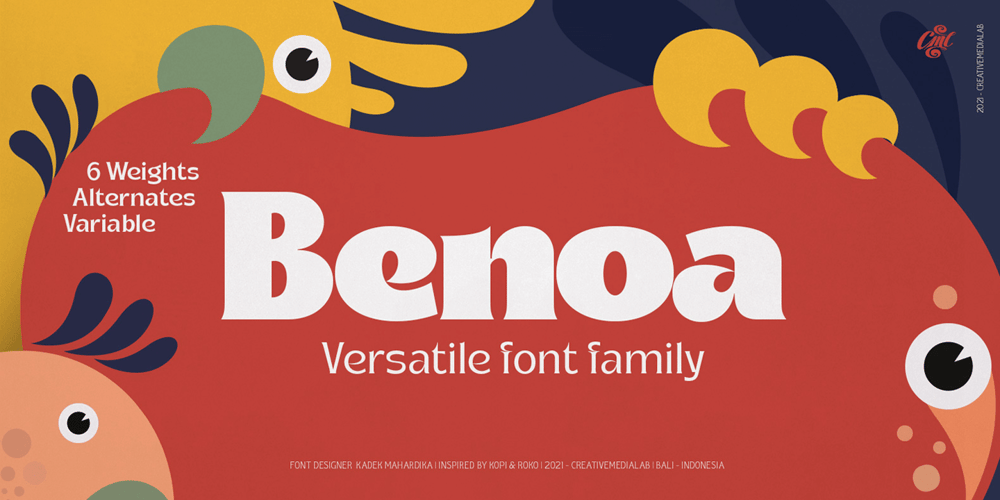
Benoa
Benoa font
Benoa Font Family was designed by Kadek Mahardika and published by Creativemedialab. Benoa contains 7 styles and family package options. Benoa is a versatile font family for your design, consist of 6 weights from thin to black with dozens of alternates. Benoa works well with any style of design concept, from branding to a nice bold modern look!Benoa also available in Variable format, multilingual support, numbers, and currency symbols, and dozens of alternates.